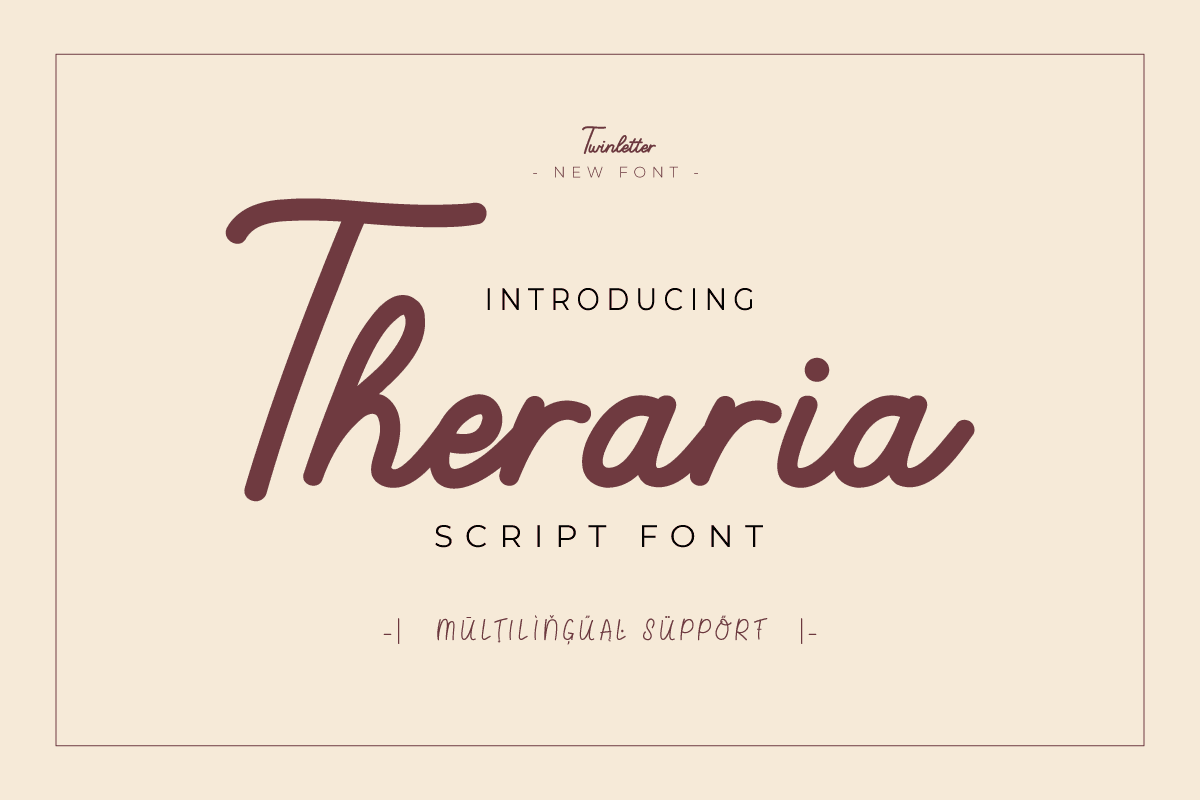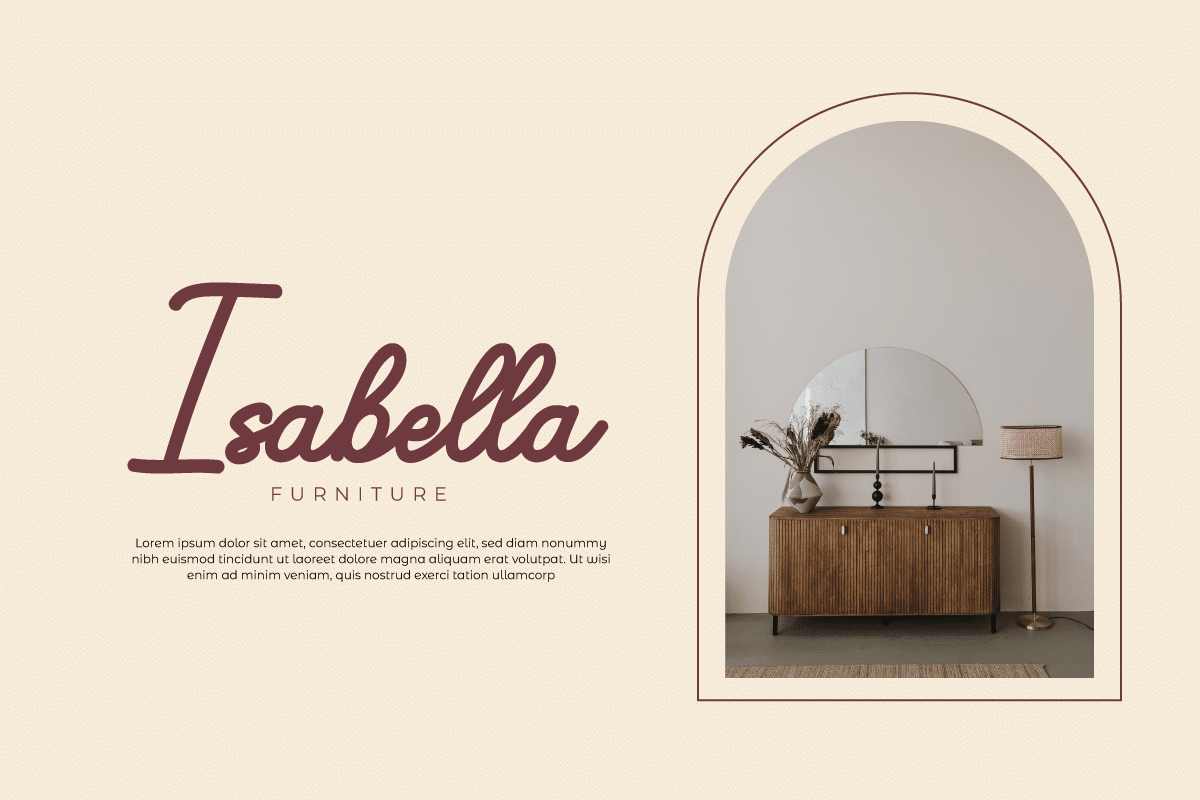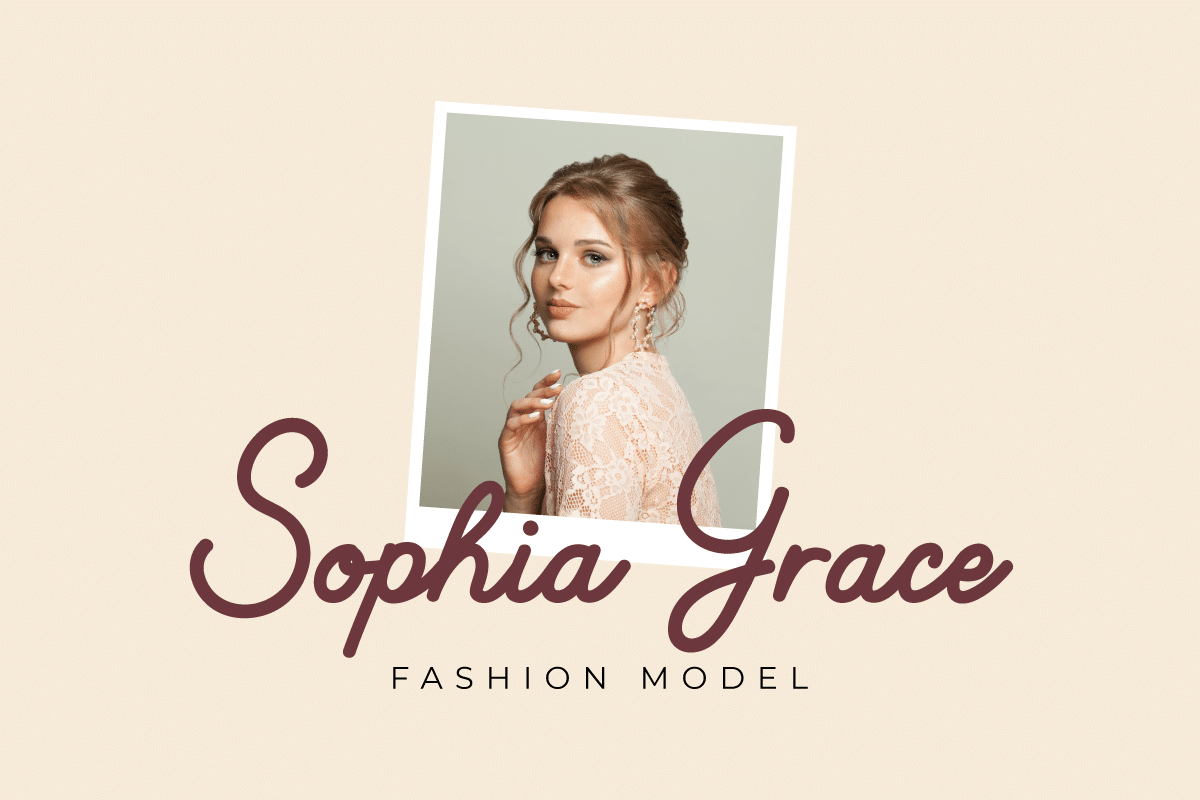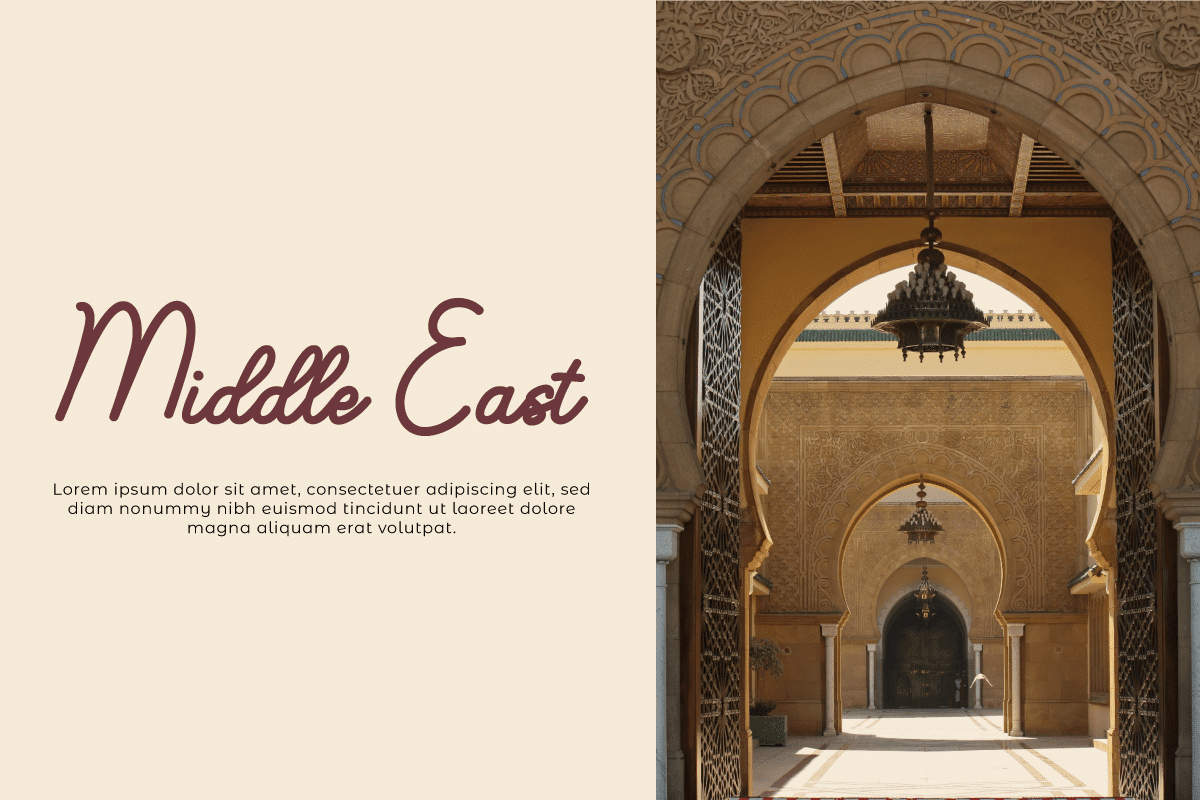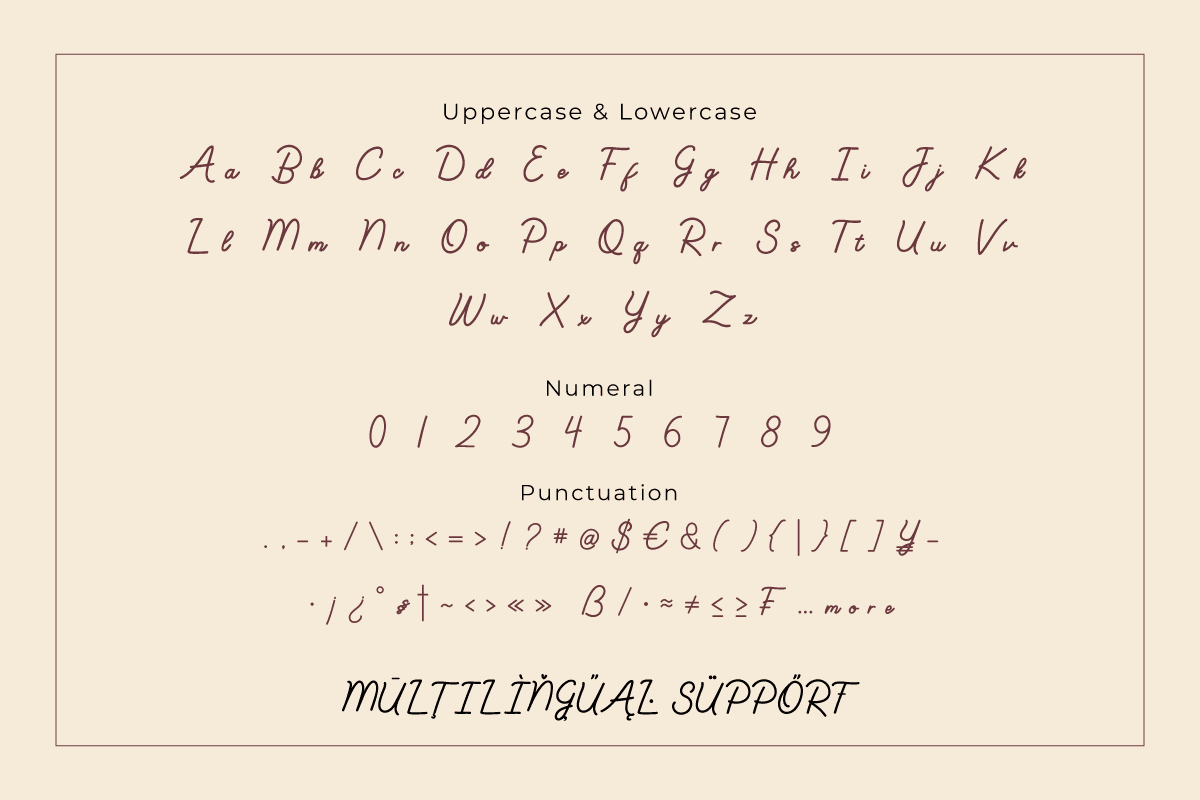
Theraria Monoline Font
Theraria Monoline Script is a refined, minimalist font characterized by its single-line strokes and elegant curves. Designed for versatility, it effortlessly transitions from sophisticated logos and invitations to modern signage and digital applications. With its clean lines and contemporary aesthetic, Theraria adds a touch of sophistication to any design project. Perfect for those seeking a balance of simplicity and style.